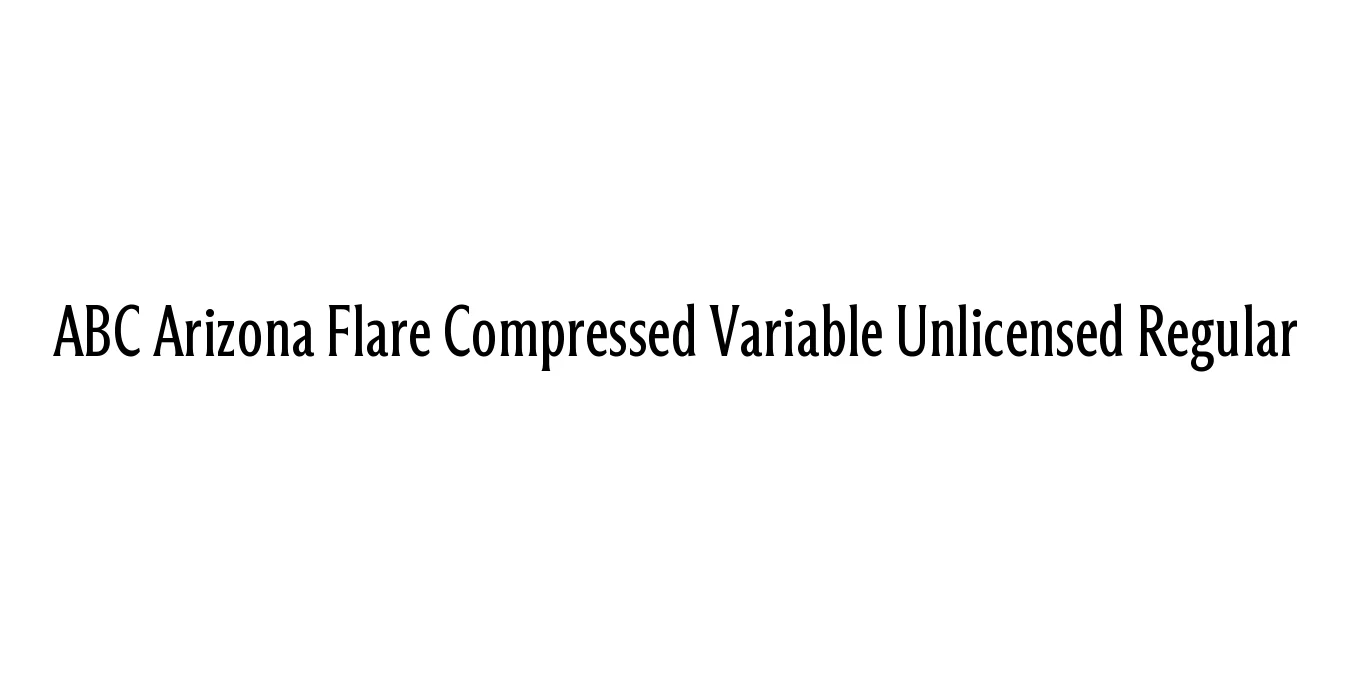
ABC Arizona Flare Compressed Variable Unlicensed Regular
Designed by Elias Hanzer
| Category | Flare Serif |
| Designer | Elias Hanzer |
ABC Arizona is a groundbreaking typeface system designed by Elias Hanzer and released through the Swiss foundry ABC Dinamo. It represents a significant milestone in variable font technology, as it was one of the first families to encompass five distinct visual styles—Serif, Sans, Flare, Mix, and Text—all within a single, fluidly adjustable design space. The Flare Compressed version specifically focuses on high-impact verticality, utilizing sharp, subtle flares at the stroke endings to provide a sophisticated alternative to traditional serifs.
The Arizona Flare Compressed Variable is characterized by its extreme space-saving proportions and elegant, pinched terminals. It is engineered for designers who require maximum character in tight layouts, such as magazine headers or mobile UI elements. By utilizing the variable axis, users can fine-tune the weight and width to fit specific design constraints, making it a highly versatile tool for contemporary digital and print environments.
ABC Arizona Flare Compressed Variable Unlicensed Regular Best Uses
Ideal for sophisticated magazine headlines and narrow column titles.
Perfect for luxury fashion or architecture brand identities requiring a sharp, modern look.
Excellent for high-impact vertical typography on event posters and banners.
Great for hero sections where a unique, compressed aesthetic is needed to save horizontal space.